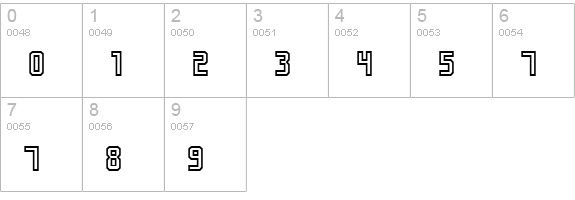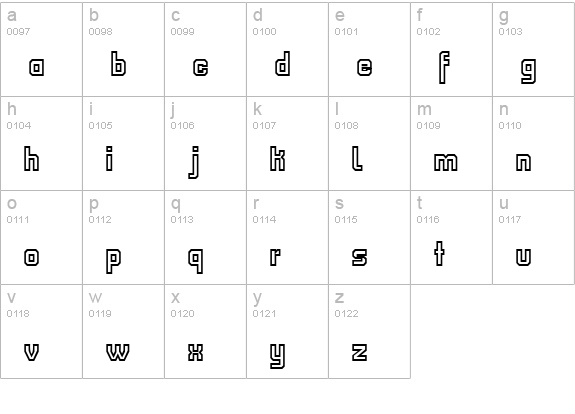
Introducing FM College Team, a captivating outline font that exudes energy and excitement. Designed with a modern twist, this font is perfect for creating eye-catching headlines, posters, and sports-themed designs. Its bold and dynamic appearance adds a sense of power and athleticism to any project. FM College Team is a versatile font that can be used for various purposes, from team logos and jerseys to event promotions and social media graphics. Its clean lines and sleek contours make it highly legible, ensuring that your message gets across loud and clear. One of the greatest features of FM College Team is that it is freely available to download at FontsMarket.com. This means that you can enjoy the benefits of this outstanding font without any cost or hassle. Simply head over to FontsMarket.com, locate FM College Team, and start incorporating it into your designs today. Whether you are a professional designer, a student working on a project, or simply someone who enjoys experimenting with fonts, FM College Team is a must-have addition to your font library. Its unique style and versatility make it suitable for a wide range of design projects, allowing you to unleash your creativity and make a lasting impression. So why wait? Elevate your designs with FM College Team and let its bold and energetic presence make a statement. Download this amazing font for free at FontsMarket.com and embark on a design journey that is sure to captivate and inspire.